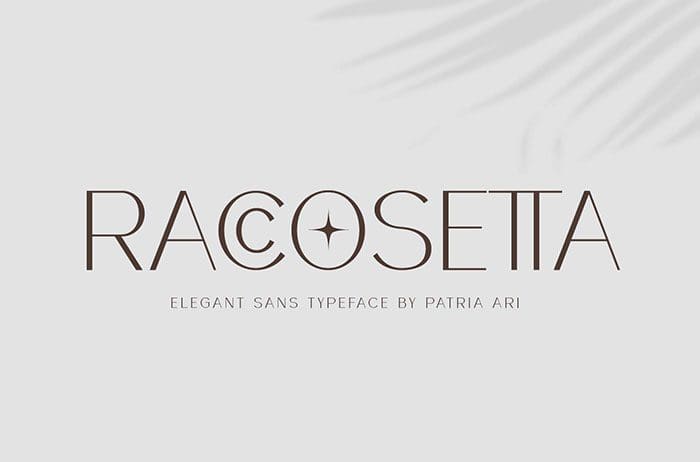
Raccosetta Sans Serif Font
Raccosetta is an elegant Sans Serif Font with touch of modern and simplicity. With this typeface, you can use it for magazine cover, headline, wedding invitations, logo, templates design, and many. Thanks to Patria Ari Typestudio for sharing this font! Take a look at this portfolio for more of his stunning fonts.